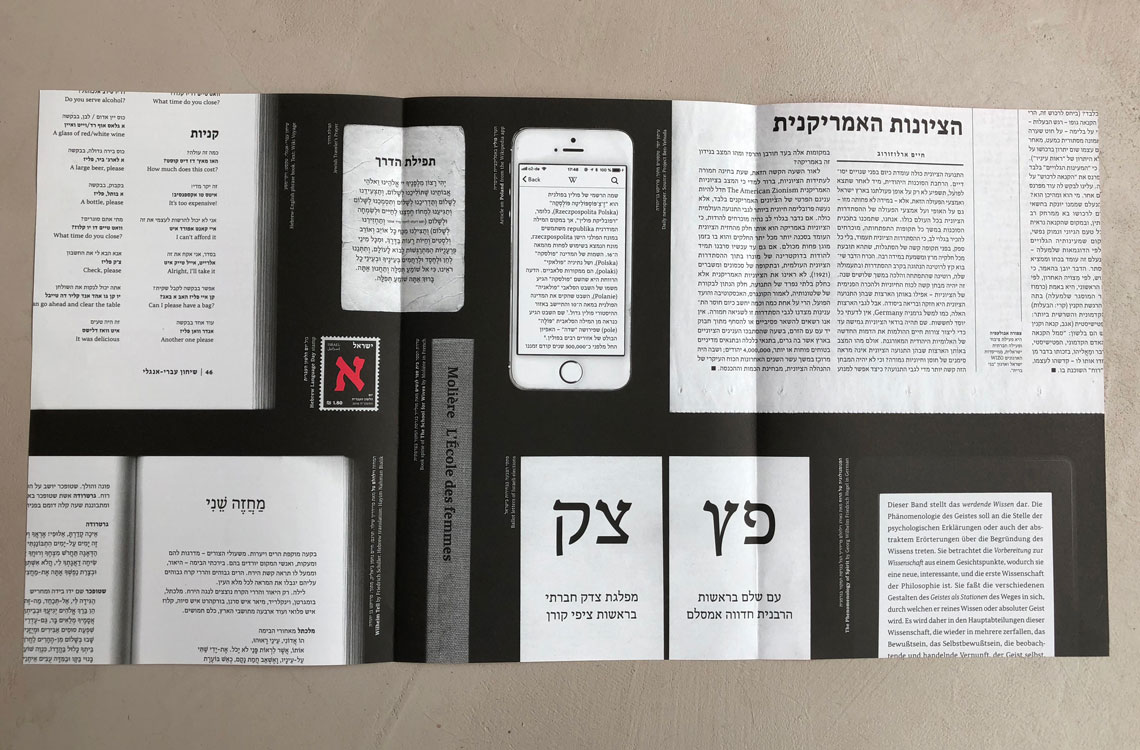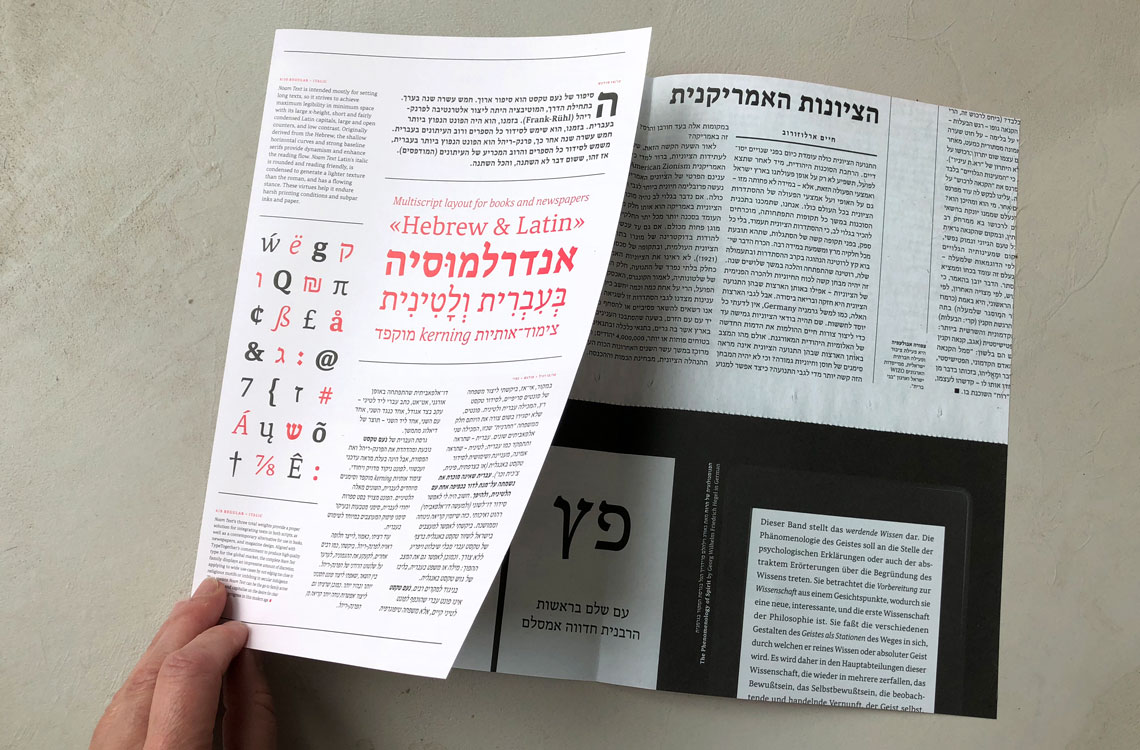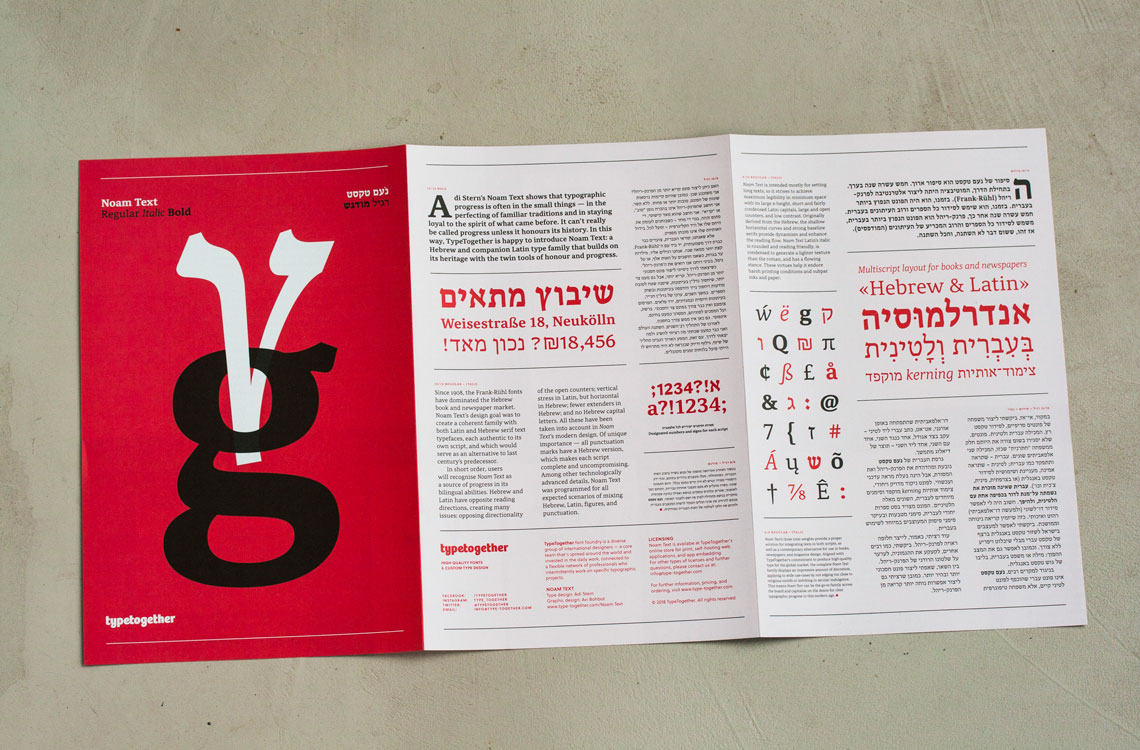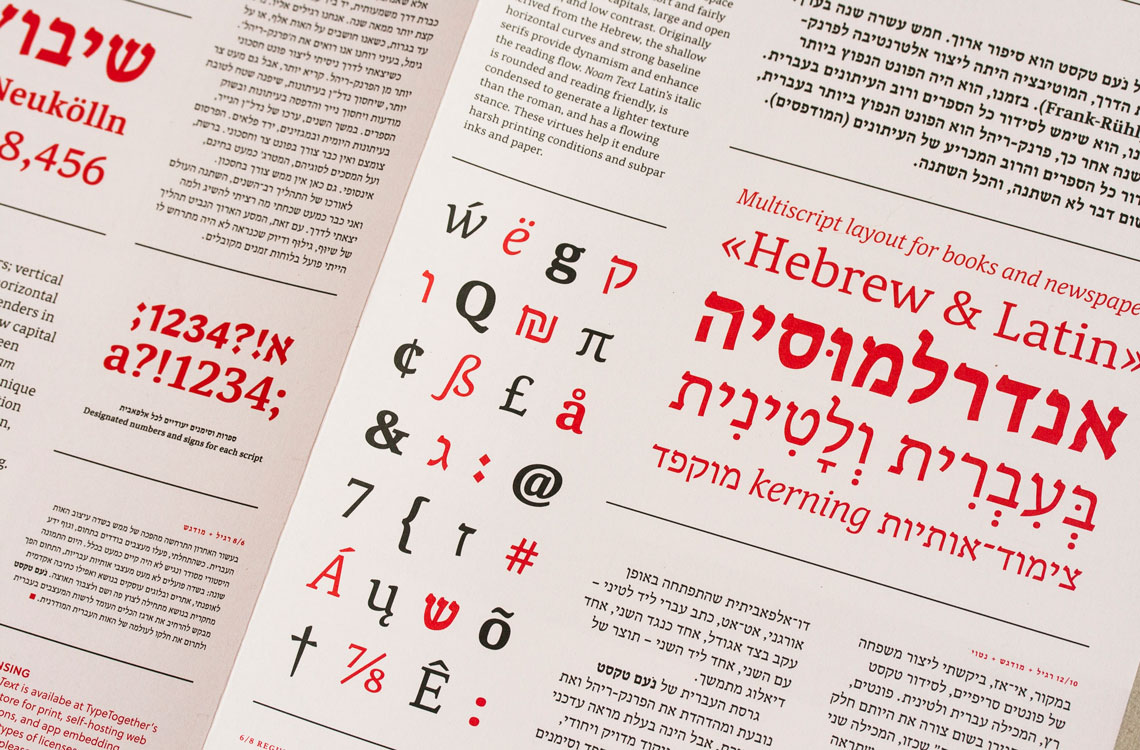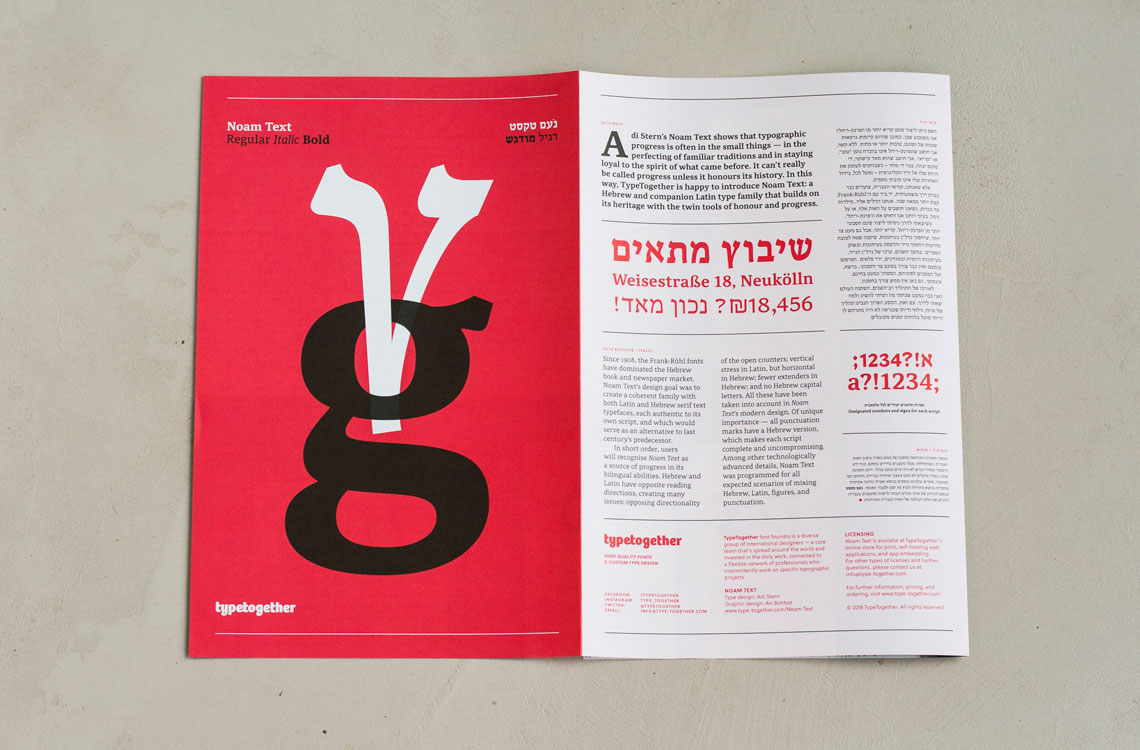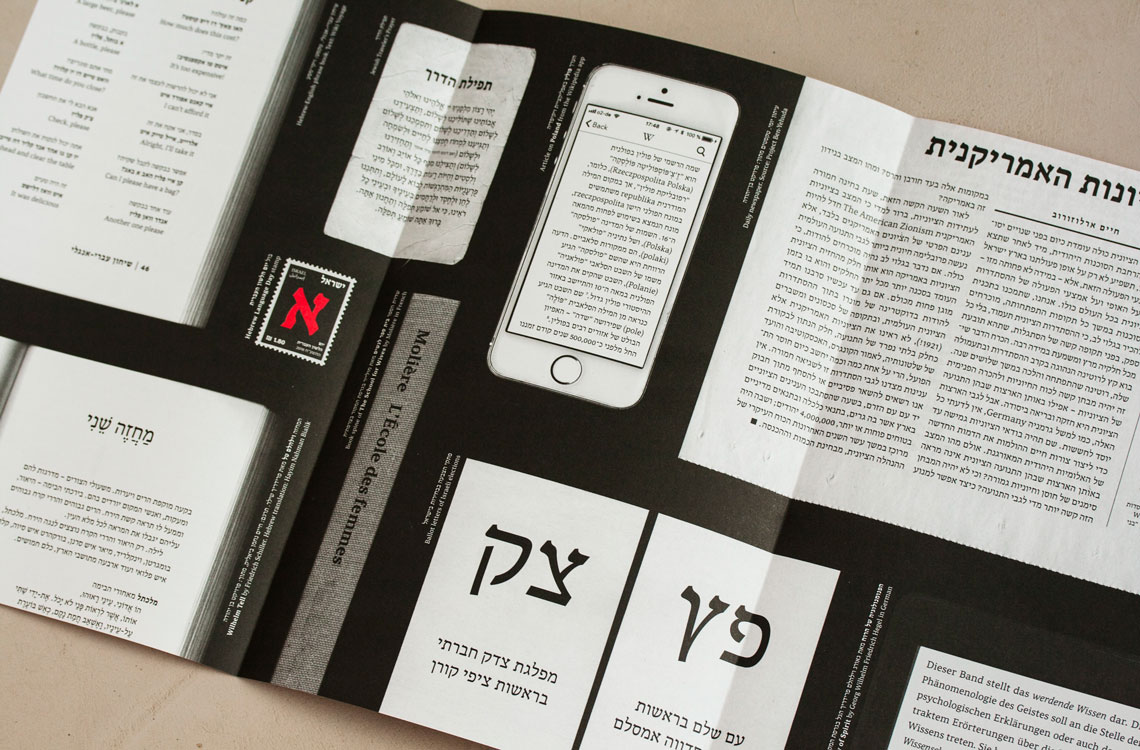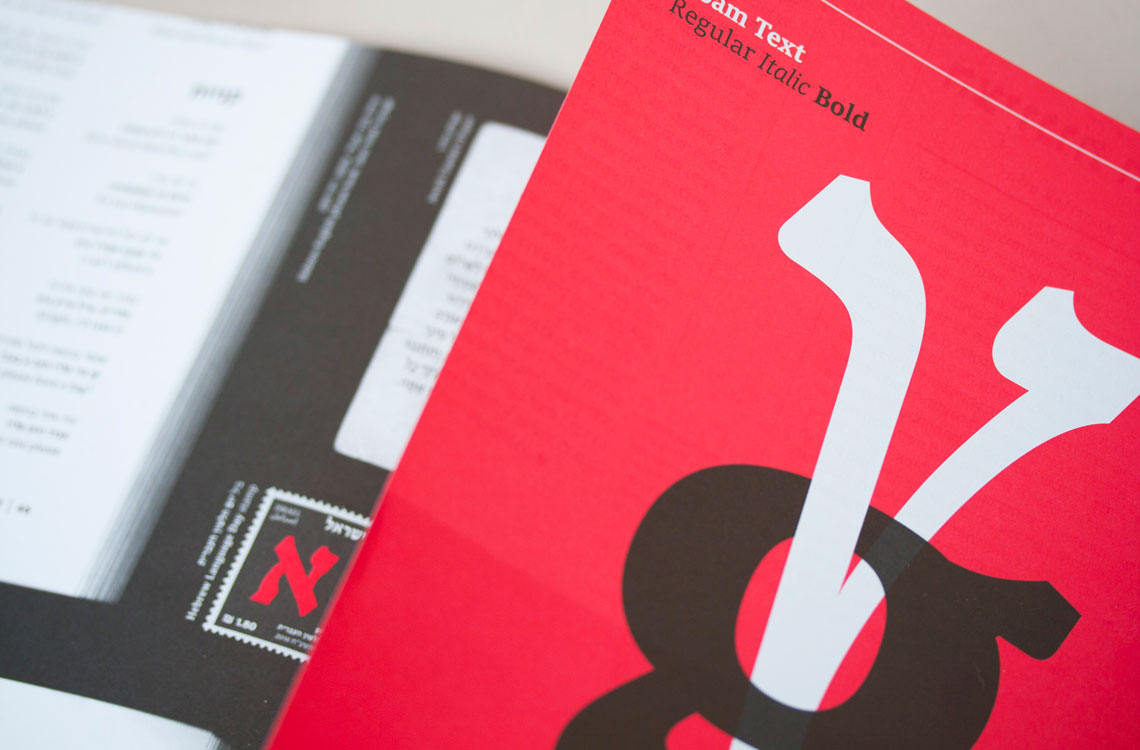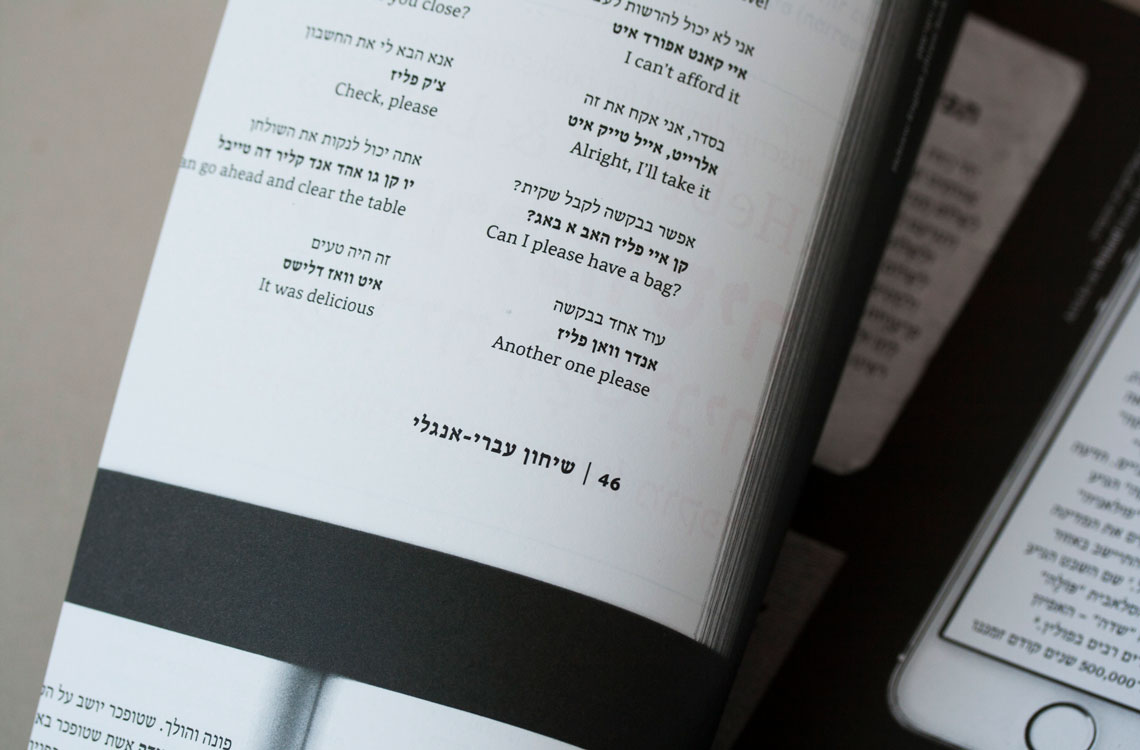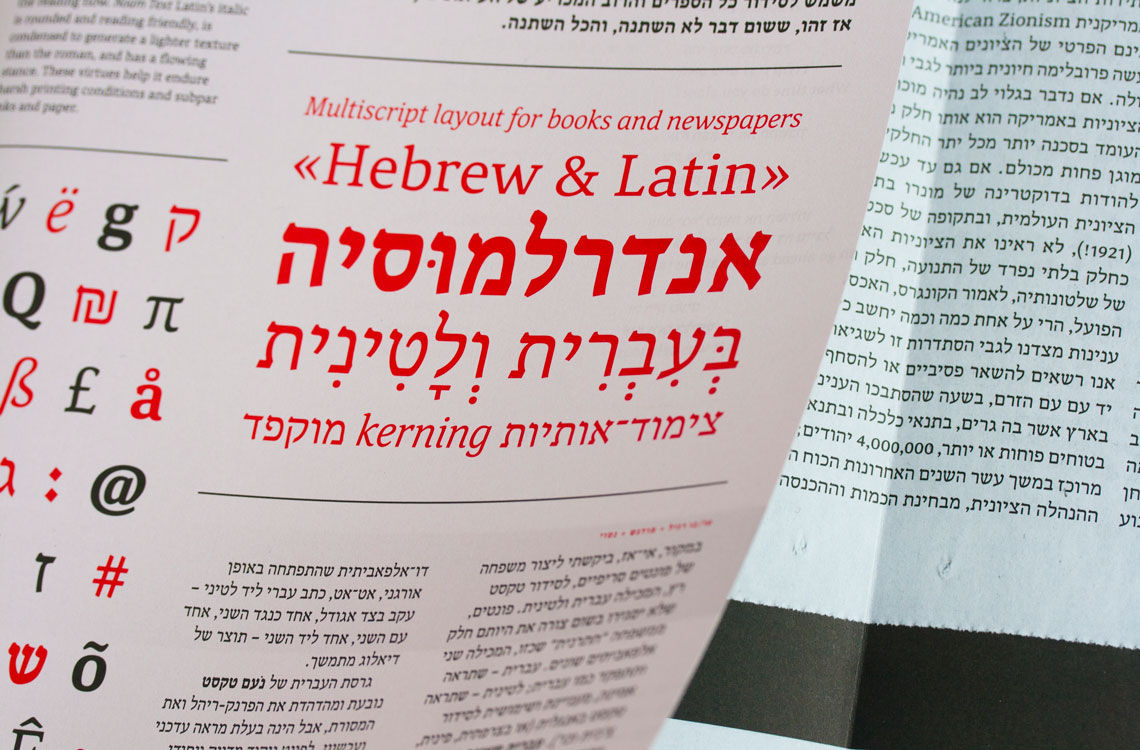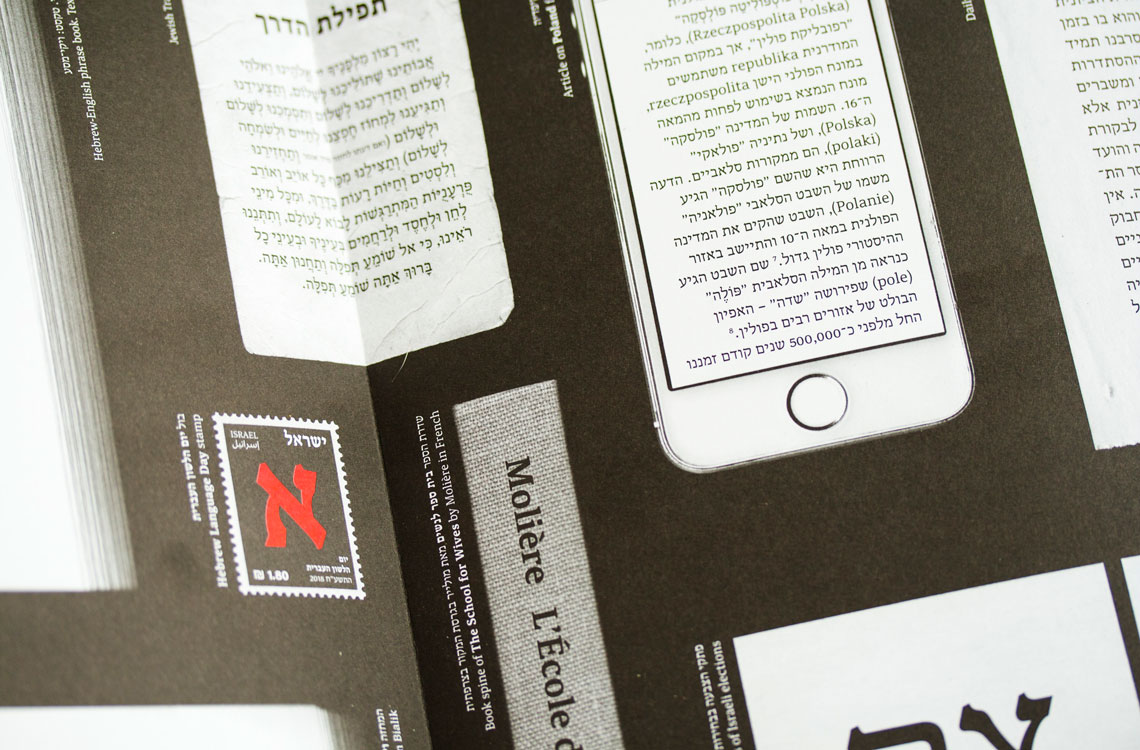
Noam Text Specimen — NEW
Talented Israeli designer Avi Bohbot designed this beautiful fold-out featuring Noam Text by Adi Stern. This dual script family has the stable resilience required for a newspaper typeface, and the harmony required for setting modern bilingual text of any category. Noam Text is a Hebrew font that builds on its heritage with the twin tools of honour and progress.